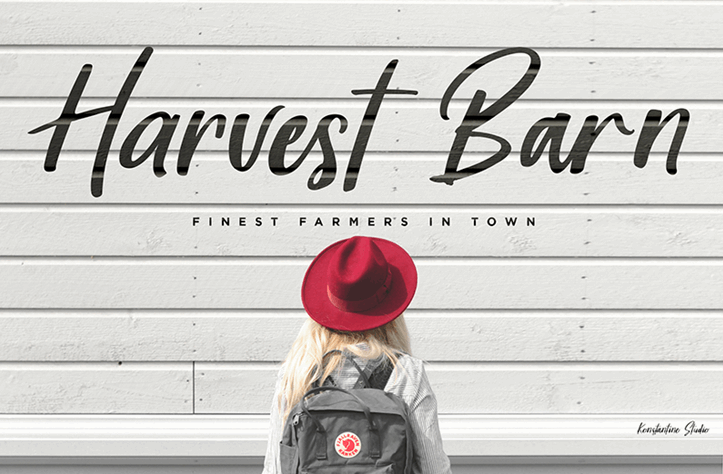
Free Harvest Barn Font
Introducing you to the absolutely beautiful free harvest barn font. Font Space has created this amazing and beautiful font. You can create a professional designs with this beautiful font.